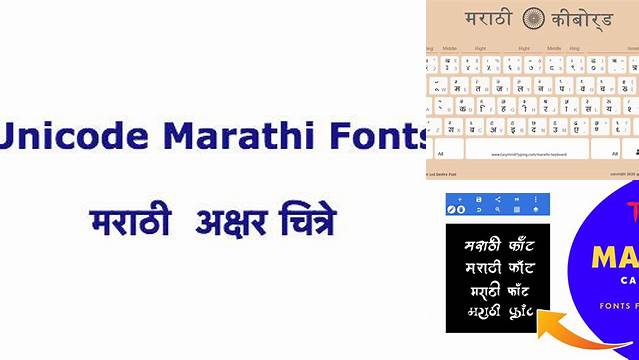
Best Marathi Unicode Fonts For Windows 10
Hey guys! If you're looking to spice up your Windows 10 experience with some awesome Marathi fonts, you've come to the right place. Finding the perfect Marathi Unicode fonts can sometimes feel like a treasure hunt, but don't worry, I'm here to guide you. We'll dive into the world of Marathi fonts that play nicely with Windows 10, making sure your documents, websites, and everything in between look absolutely fantastic. This guide will cover everything from the basics of Unicode to the coolest Marathi fonts you can download and install right now. So, grab a cup of coffee, and let's get started on this exciting journey to transform your digital world with beautiful Marathi typography!
H2: Understanding Marathi Unicode Fonts
Alright, before we jump into the fonts themselves, let's get our heads around what Marathi Unicode fonts are all about. Think of Unicode as the universal language for text in the digital world. It’s like a massive dictionary that assigns a unique code to every character, including all those beautiful Marathi letters and symbols. Unlike older font systems that might have limited character support, Unicode ensures that your Marathi text displays correctly no matter where you are or what device you're using. This is super important because it means anyone with a computer and the right font can read your documents and see the text exactly as you intended – no more scrambled or missing characters! Now, why is this so crucial for Marathi fonts? Well, Marathi, like many Indian languages, has a rich set of characters, including vowels, consonants, and special symbols that are unique to the language. Without Unicode, these characters wouldn't display properly, or worse, wouldn't display at all. Imagine trying to read a book where half the letters are missing – a total nightmare! Using Unicode fonts solves this problem, ensuring that every letter, every diacritic, and every punctuation mark appears correctly. This way, you can create and share Marathi content with confidence, knowing that everyone will be able to enjoy it as intended. This makes Unicode fonts essential for anything from writing emails and creating documents to designing websites and creating social media content. Furthermore, these fonts are designed to be compatible with Windows 10. They integrate seamlessly with the operating system, so you won't have to worry about compatibility issues. This means easy installation and smooth performance, allowing you to focus on your work or creative endeavors. So, in a nutshell, understanding Marathi Unicode fonts is the first step towards creating beautiful and accessible Marathi content.
H3: Why Unicode Matters for Marathi Text
So, why should you care about Unicode specifically when it comes to Marathi text? Well, Unicode is not just a technical detail; it's the foundation that supports a wide range of benefits. First and foremost, Unicode ensures compatibility. Imagine you write a beautiful essay in Marathi using an older font, and then you send it to a friend who might have a different operating system or a different font installed. Without Unicode, chances are your friend will see a garbled mess of incorrect symbols or missing characters. With Unicode fonts, this is no longer a concern. Whether you are sharing documents across different devices, collaborating with colleagues, or publishing content online, Unicode ensures that your text is consistently displayed, preserving the integrity of your message. Also, Unicode plays a crucial role in preserving the cultural heritage of Marathi. The Marathi language is rich in history and tradition. By using Unicode fonts, you are contributing to the preservation of this heritage. This allows us to communicate and share Marathi literature, poetry, and other forms of expression with the world. This is especially important in an increasingly globalized world. Another key advantage of Unicode fonts is their versatility. These fonts are designed to work with various software applications and platforms. Whether you're using Microsoft Word, Google Docs, or Adobe Photoshop, Unicode fonts seamlessly integrate into your workflow. This means you can easily switch between different programs without worrying about font compatibility issues. This is very important for professionals and creative individuals who often use different software to complete their projects. Finally, the use of Unicode fonts can help with search engine optimization (SEO) for Marathi content. Because search engines can accurately index and understand Unicode characters, your content is more likely to be found by users searching for information in Marathi. This is essential if you are looking to promote your blog, website, or any other digital content. Unicode fonts ensure that your content is easily searchable and accessible to a wider audience, increasing your online visibility.
H2: Top Marathi Unicode Fonts for Windows 10
Okay, let's get to the good stuff! We're diving into the top Marathi Unicode fonts that you can use on your Windows 10 system. I've compiled a list of some of the best, including fonts that are not only visually appealing but also highly functional. Remember, the ideal font depends on what you are doing. If you're writing a formal document, you might prefer a font with a clean, professional look. For something more creative, you can go for a more stylish or decorative font. The cool thing is that these fonts are all free to download and install. Installing them is pretty easy as well. First, you'll need to download the font files. Most of these come in .ttf (TrueType Font) or .otf (OpenType Font) formats. Once you have the files, you can install them on Windows 10 by right-clicking the font file and selecting 'Install'. Alternatively, you can copy the font files into the Fonts folder in your Windows directory. Once installed, the fonts will be available in all your applications. This means you can select them in Microsoft Word, Adobe Photoshop, or any other software where you can select fonts. Always keep in mind that these are Marathi Unicode fonts, meaning they have all the special characters you'll need to write correctly. You won't have to deal with those weird substitutions or missing characters. Let's get into the specific fonts now, so you can choose the ones that best suit your style and needs. I've tried to include a variety, so there is something for everyone, whether you're a professional writer, a student, or just someone who loves to write in Marathi.
H3: Shusha: A Clean and Modern Choice
Shusha is a popular choice among Marathi users because it offers a clean and modern look. It's a very versatile font, meaning it works well in various contexts. Shusha is designed with readability in mind, making it easy on the eyes, whether you're reading a long article or creating a simple social media post. This font is suitable for formal documents, websites, and even presentations. One of the things that sets Shusha apart is its excellent support for all Marathi characters, ensuring that your text displays without any issues. The characters are designed to be clear and well-defined, which helps in enhancing readability. This is particularly important when you're working with complex layouts or small font sizes. The design of Shusha is contemporary, which means it integrates well with modern design trends. Whether you're designing a website, writing a blog post, or preparing a report, Shusha will give your text a polished and professional look. You can easily pair it with other fonts. The font has good spacing and proportions, which makes it easy to use alongside other fonts, such as English fonts. You can use it to create a visual hierarchy and make your content more engaging. The font is also freely available. You can find it on many font websites, download it, and install it on your system. Installation is very easy and can be done in a few steps. Because of these features, Shusha is a great font for everyday use and for professional projects. So if you are looking for a font that offers both style and functionality, Shusha is definitely worth considering. Its modern design, readability, and full support for Marathi characters make it a top choice for Windows 10 users.
H3: Shivaji01: Classic and Readable
If you're after a more traditional feel, Shivaji01 is a fantastic option. It's a classic Marathi font that's highly readable and widely used in various contexts. This font has a timeless appeal and is suitable for a wide range of uses, from creating formal documents to designing educational materials. One of the key strengths of Shivaji01 is its readability. The font is designed in a way that makes the text easy to read, even in smaller sizes. This is essential when you need to present a lot of information in a limited space. This readability makes Shivaji01 a good choice for long-form content like books, articles, and reports. The design of the font is rooted in traditional Marathi typography, which gives your text an authentic look. This is especially valuable if you want to give your content a sense of tradition and heritage. This makes Shivaji01 a great option for cultural or historical projects. The font also offers comprehensive support for all Marathi characters, making sure that every letter, vowel sign, and special symbol displays correctly. You won't have to worry about missing glyphs or incorrect character rendering. Shivaji01 is also very accessible. The font is usually available for free download from different font websites, and its installation process is very straightforward. It integrates smoothly with Windows 10 and can be easily used in various applications. It is a good choice for anyone who wants to write in Marathi, whether for personal or professional purposes. This can be a great way to make sure your Marathi content looks good and is easy to understand.
H3: Kruti Dev: For a Familiar Look
Kruti Dev is well-known and it’s often considered a great option because it is instantly recognizable to many Marathi speakers. It’s a popular choice among those familiar with older systems. Even though it is technically not a Unicode font in its original form, many versions are Unicode-compatible, bridging the gap for users who need a familiar aesthetic. Its design often mimics the look of older, pre-Unicode Marathi fonts, making it great if you want to maintain a particular visual style. The font's widespread use means that many people are already used to its design, which can be a significant advantage if you want to connect with a broader audience. When using Kruti Dev, make sure you are using a Unicode-compatible version to ensure all characters render correctly. Because the original version was designed for older systems, some characters might not display correctly in modern software. The presence of a Unicode version of Kruti Dev ensures compatibility across various devices and operating systems, which is crucial for effective communication. The font is easily recognizable, and its design has become an integral part of Marathi typography. When you choose Kruti Dev, you are drawing on a rich tradition of written Marathi. This can be essential if you are working on a project that celebrates the heritage of the language or needs to appear familiar to a wide audience. When using Kruti Dev, you might consider using it alongside other fonts to create a visual hierarchy and provide emphasis. Because of its design, it works very well for headlines, subheadings, or short texts, whereas other fonts could be used for the body of longer texts. This combination creates a unique blend of tradition and modernity. Using the Unicode-compatible version of Kruti Dev can be a great option to connect with people who may not be used to the style of the other modern Unicode fonts. It is a fantastic bridge between the old and the new.